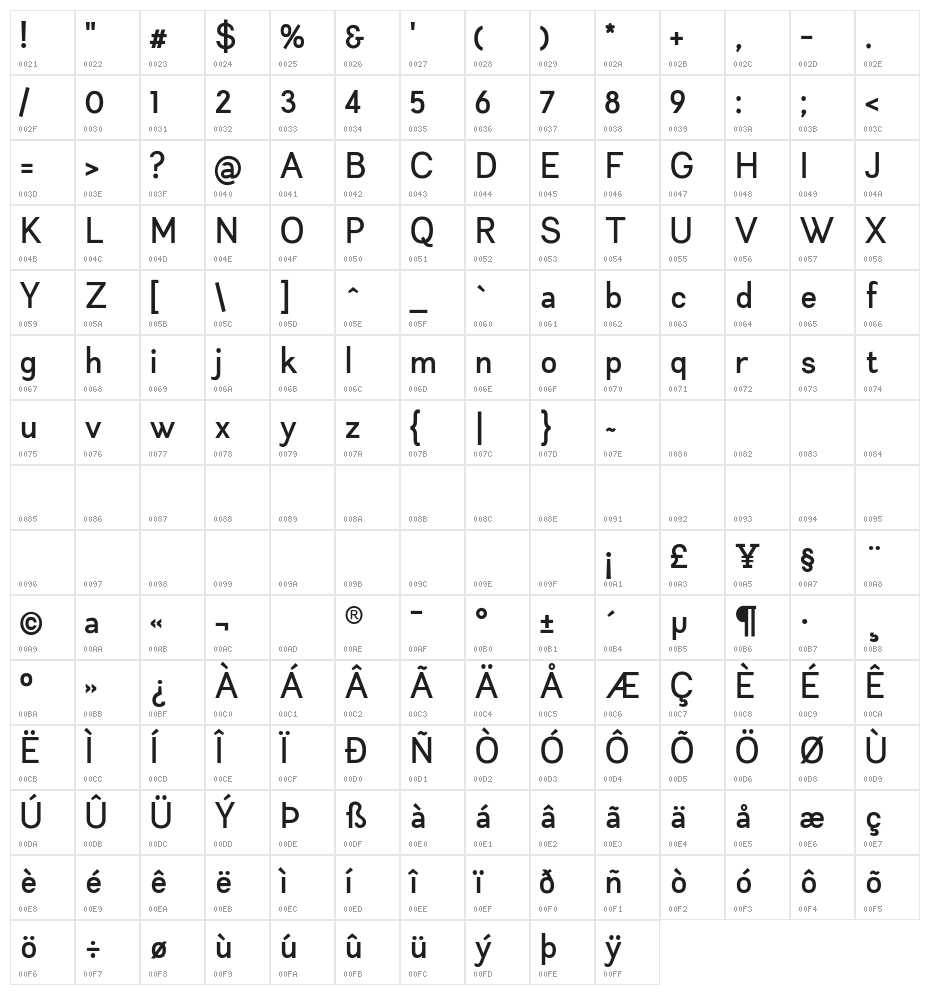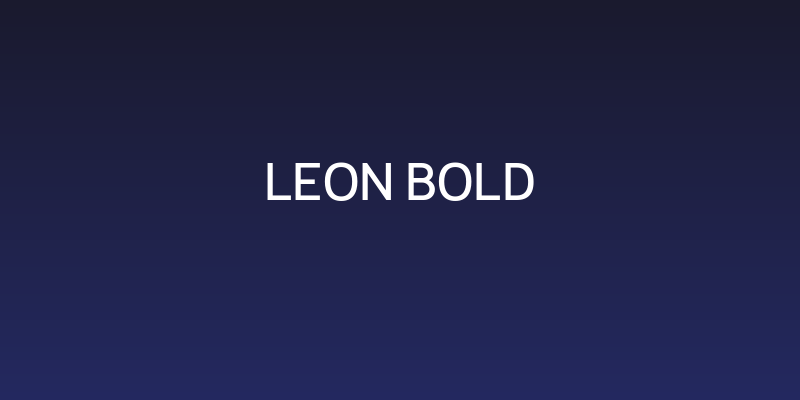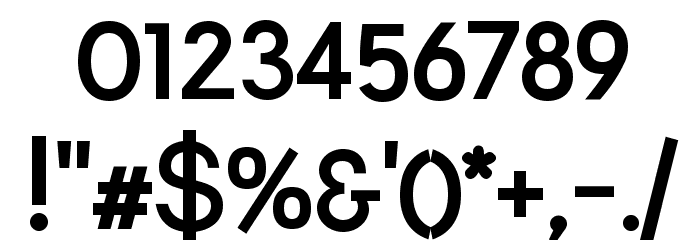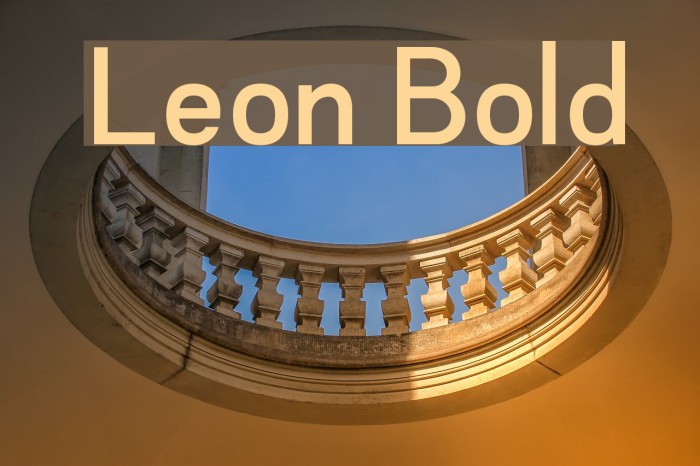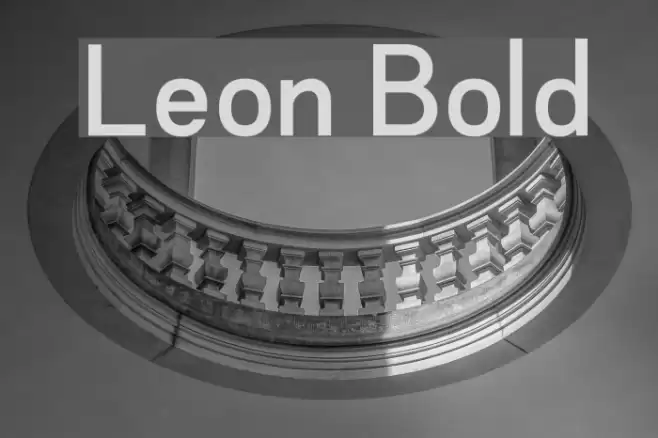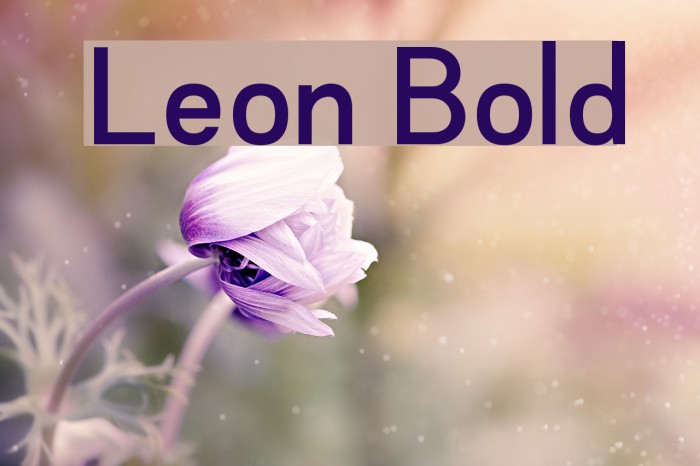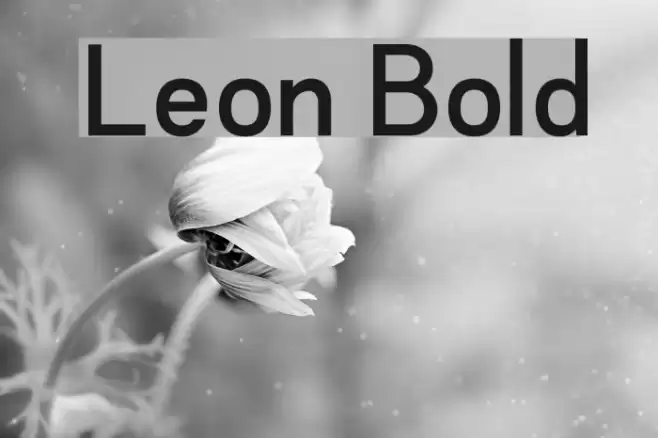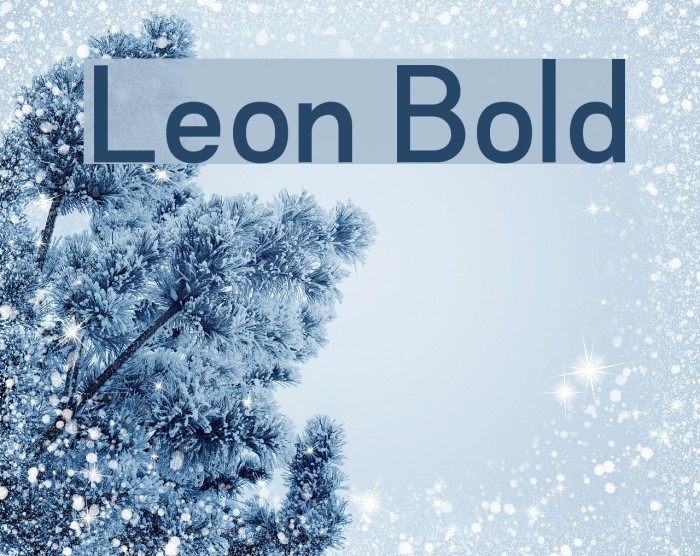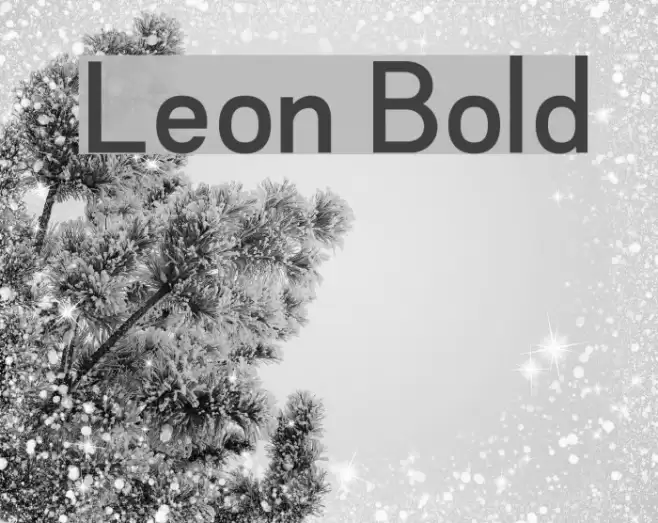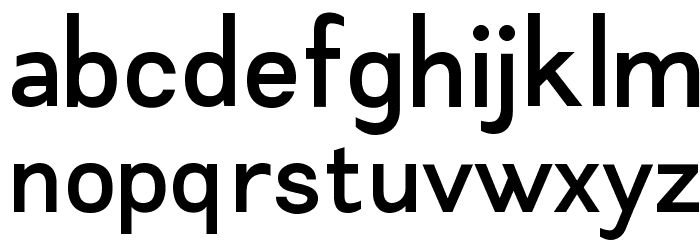
Leon Bold Font
Leon Bold Description
This typeface features a clean and modern sans-serif design with a bold weight. It presents a geometric structure with uniform stroke widths, giving it a strong and assertive appearance. The characters are well-balanced, with a consistent height and width that ensures readability. The uppercase letters are slightly taller than the lowercase, providing a clear distinction. The numerals are proportional, aligning well with the overall style of the font. Special characters are designed to match the boldness and clarity of the alphabetic characters, making this font versatile for various uses.